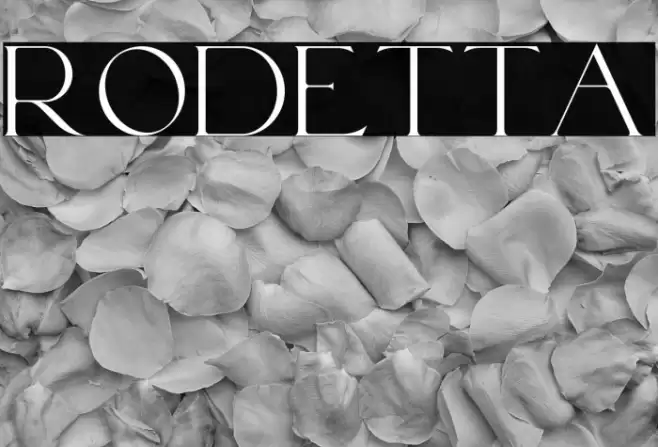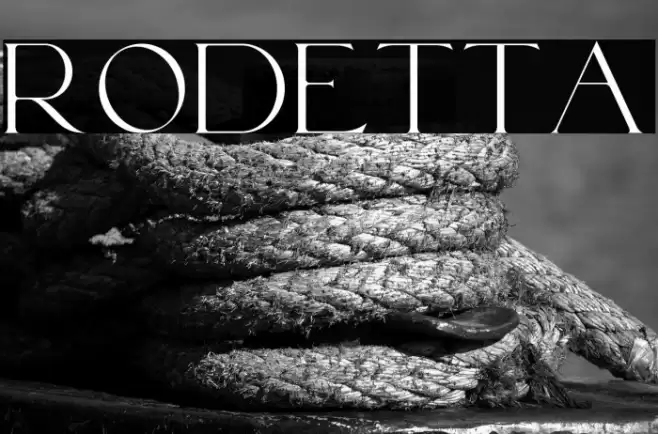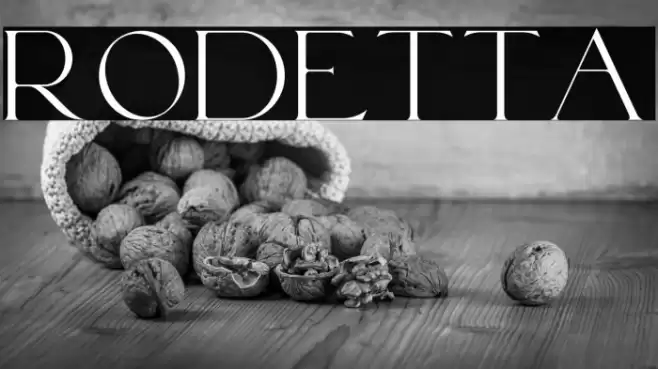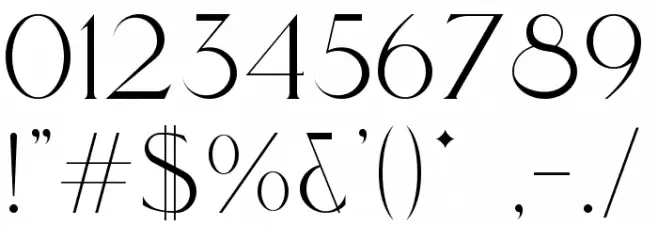
Rodetta Font
Rodetta Description
This font features a modern and elegant design with a high contrast between thick and thin strokes. The characters are sleek and sophisticated, with a distinct flair that adds a touch of luxury. The uppercase letters are particularly striking, with sharp angles and smooth curves that create a dynamic visual impact. The lowercase letters maintain the same elegance, offering a cohesive look across the alphabet. Numbers and special characters are designed with the same attention to detail, ensuring consistency throughout. This font is perfect for making a bold statement while maintaining a sense of refinement.
A modern, high-contrast font with elegant, sophisticated characters from Regular fonts.